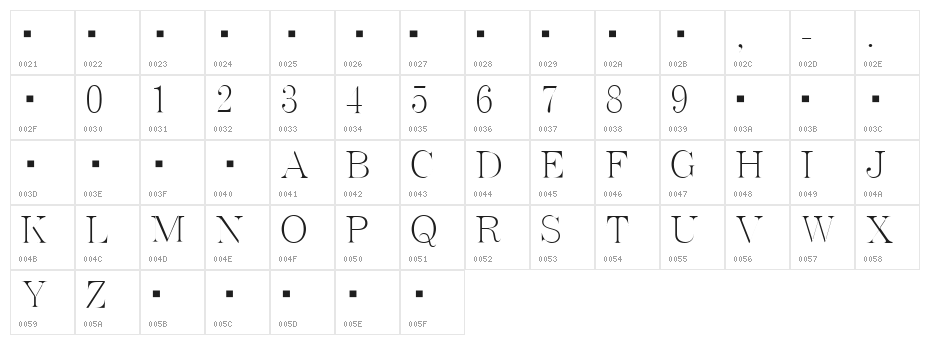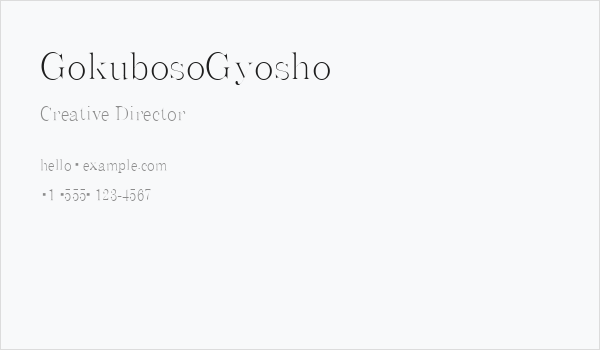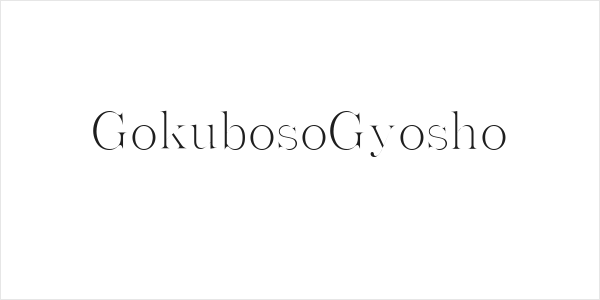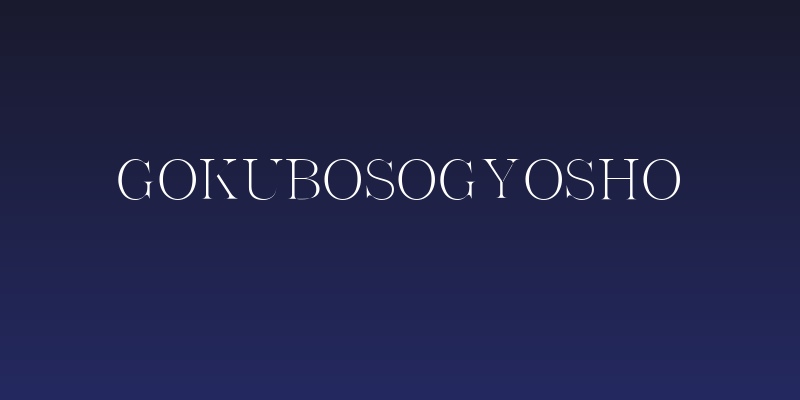
GokubosoGyosho Font
GokubosoGyosho Description
This font exhibits a refined and elegant style, characterized by its thin, delicate strokes and high contrast between thick and thin lines. The uppercase letters are tall and slender, with a sophisticated flair that suggests a modern yet timeless aesthetic. The lowercase letters maintain a consistent style, with smooth curves and a graceful appearance. The numerals are clear and distinct, matching the overall elegance of the alphabet. Special characters are designed with the same attention to detail, ensuring a cohesive look across all glyphs. This font's unique blend of modernity and classicism makes it versatile for various design applications.
| Overall Style | Elegant and sophisticated |
| Proposed Projects | Ideal for luxury branding, editorial design, wedding invitations, and high-end product packaging. |